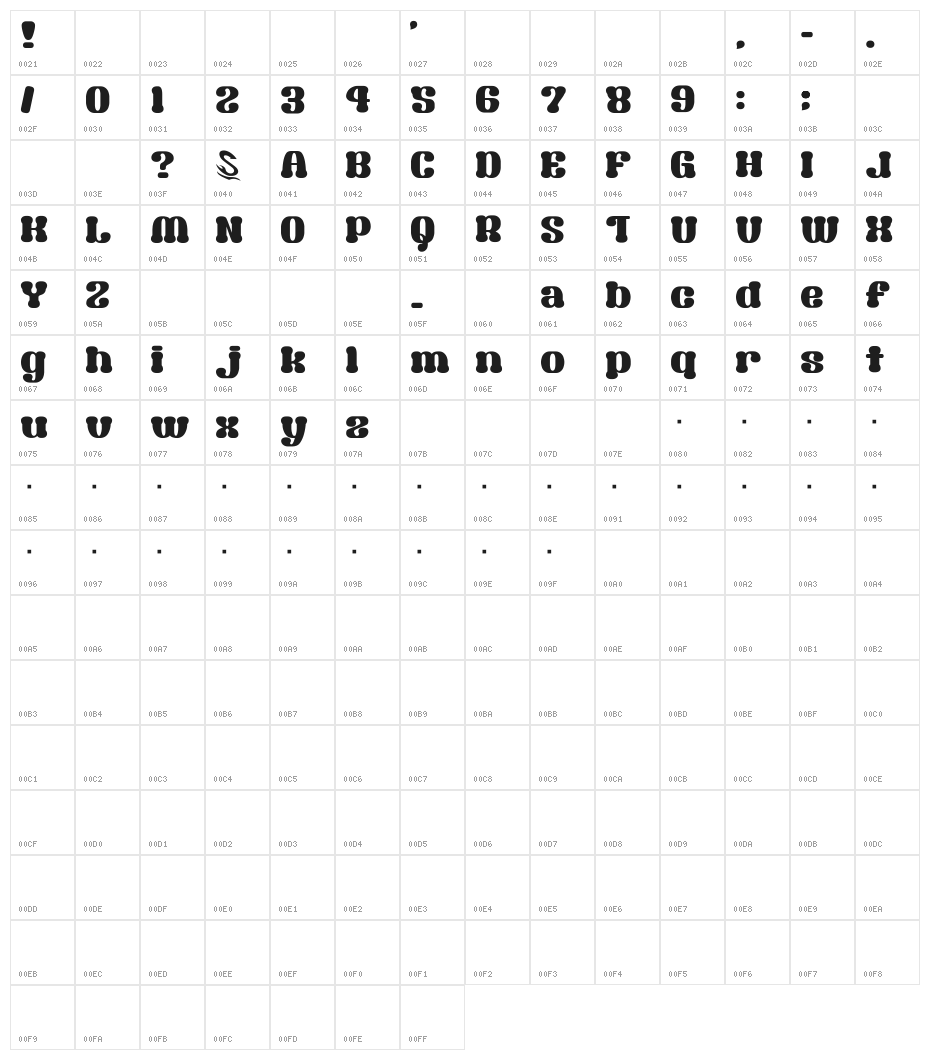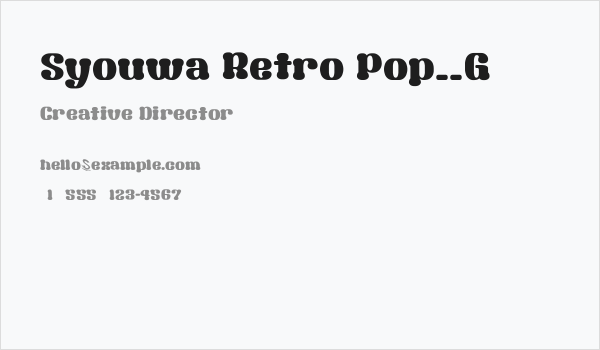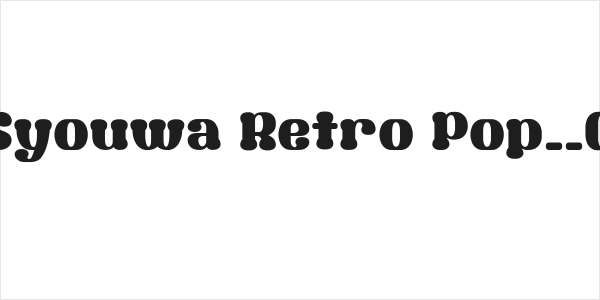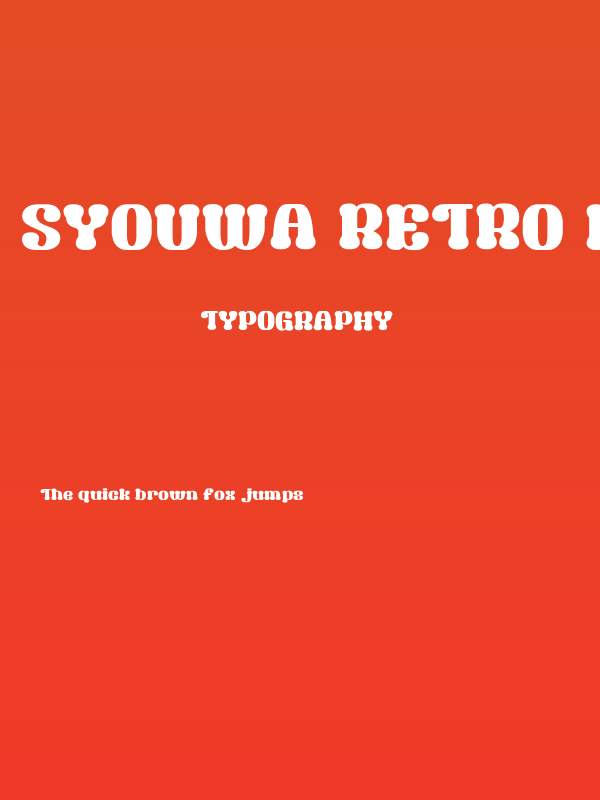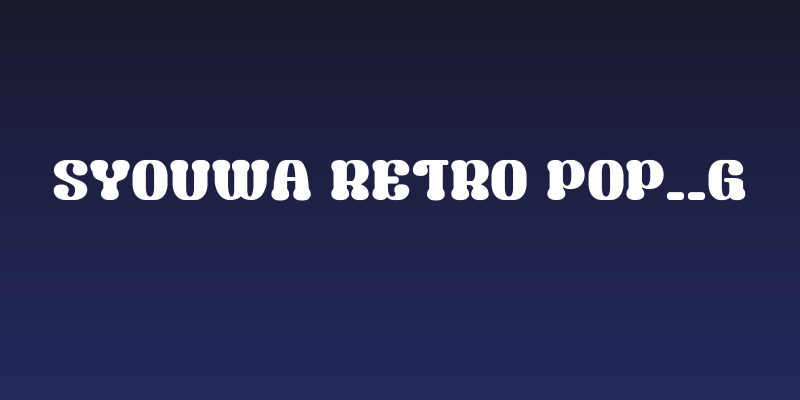
Syouwa Retro Pop__G Font
Syouwa Retro Pop__G Description
This font features a bold and playful design with a distinctly retro vibe. The characters are rounded and thick, giving them a bubbly appearance that stands out. The uppercase and lowercase letters maintain a consistent style, with exaggerated curves and a sense of whimsy. Numbers and special characters follow the same aesthetic, ensuring a cohesive look across all text. This font is ideal for projects that aim to capture a nostalgic or fun atmosphere, reminiscent of pop culture from past decades.
| Overall Style | Retro, Playful |
| Use Case | Headlines, Posters, Branding |
| Proposed Projects | Perfect for vintage-themed posters, playful branding, retro advertisements, and eye-catching headlines. |